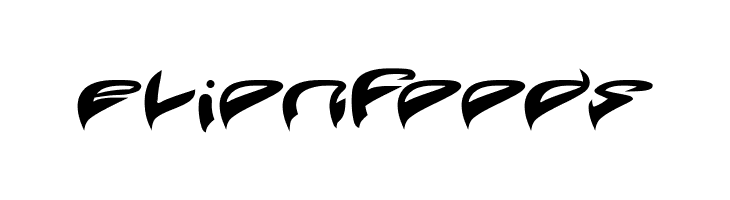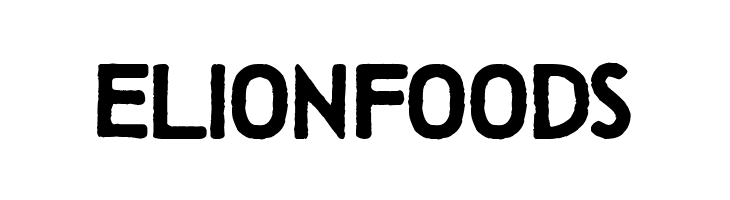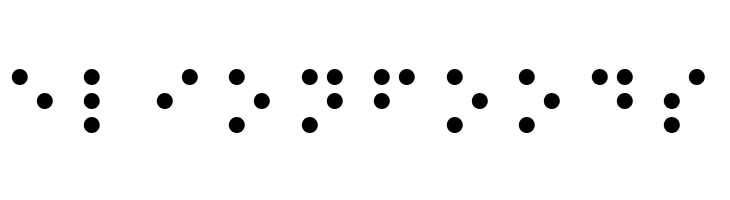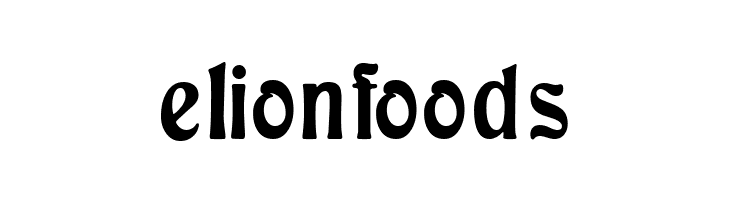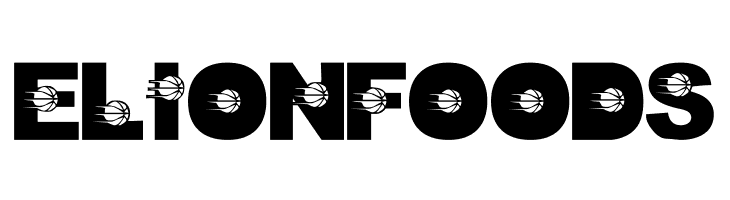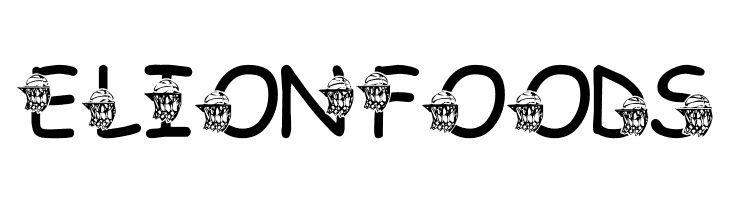
A decorative font with intricate, nature-inspired patterns and a unique organic style.
A bold, tribal-inspired font with sharp, angular edges and a dynamic style.
A bold, artistic font with a distressed, modern look.
A bold, hand-drawn font with a vintage sports theme.
Tactile dot-based font for Braille literacy.
A bold, decorative font with a playful yet structured design.
A bold, angular font with a futuristic and aggressive style.
A bold, sports-themed font with integrated basketball motifs.
A bold, basketball-themed decorative font with dynamic swoosh elements.
A playful font with letters inside basketball hoops, perfect for sports themes.